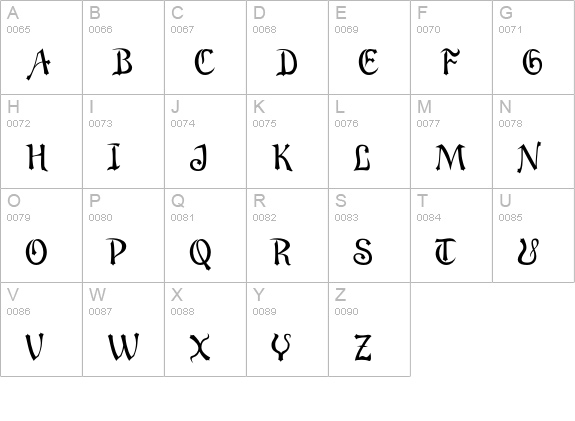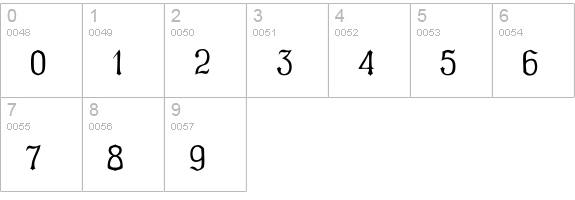
DrManta Font Details
DrManta font is a modern and stylish typeface that exudes sophistication and creativity. With its sleek lines and elegant curves, this font is perfect for adding a touch of class to any design project. Whether you're creating a logo, poster, or website, DrManta font will make your text stand out and leave a lasting impression. The best part? DrManta font is available for free download at FontsMarket.com. You can easily access this stunning font and use it in your projects without any cost. Don't miss out on the opportunity to enhance your designs with the timeless beauty of DrManta font. Download it today and take your creations to the next level.